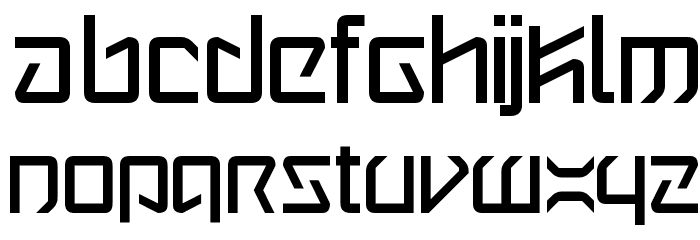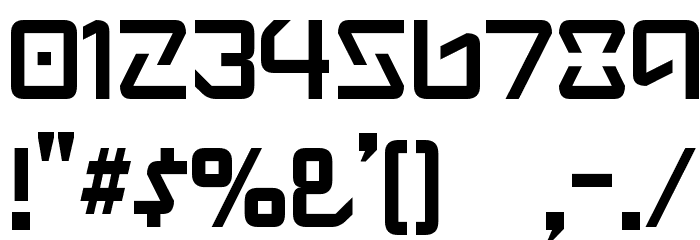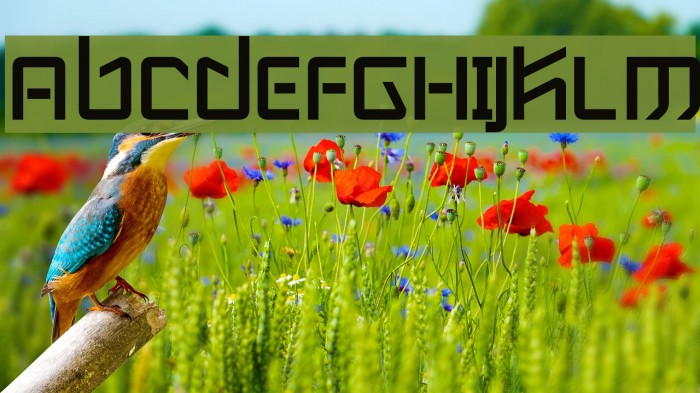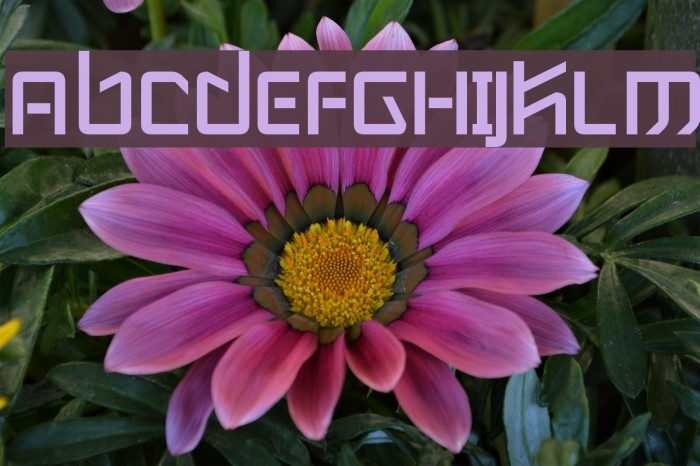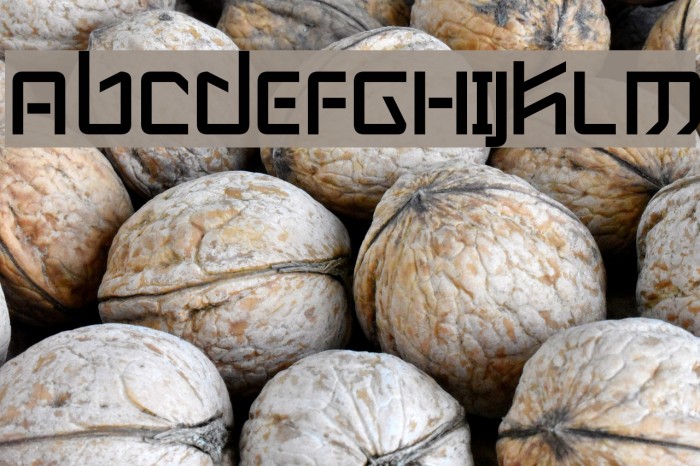
Wintermute Font
This font features a futuristic and geometric design, characterized by its angular and block-like letterforms. The uppercase and lowercase letters share a consistent style, with sharp edges and a uniform stroke width that gives it a bold and assertive appearance. The numerals and special characters maintain this aesthetic, ensuring a cohesive look across all glyphs. Its unique style is reminiscent of digital or sci-fi themes, making it ideal for projects that require a modern and tech-savvy feel. The font's design is clean yet striking, with a strong presence that commands attention.
A futuristic, geometric font with angular, block-like letterforms.
- Proposed Projects: Ideal for tech-related branding, sci-fi book covers, video game interfaces, and modern posters.